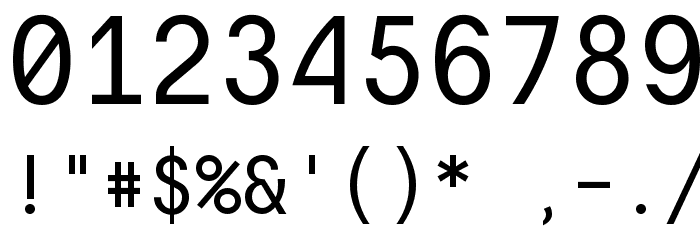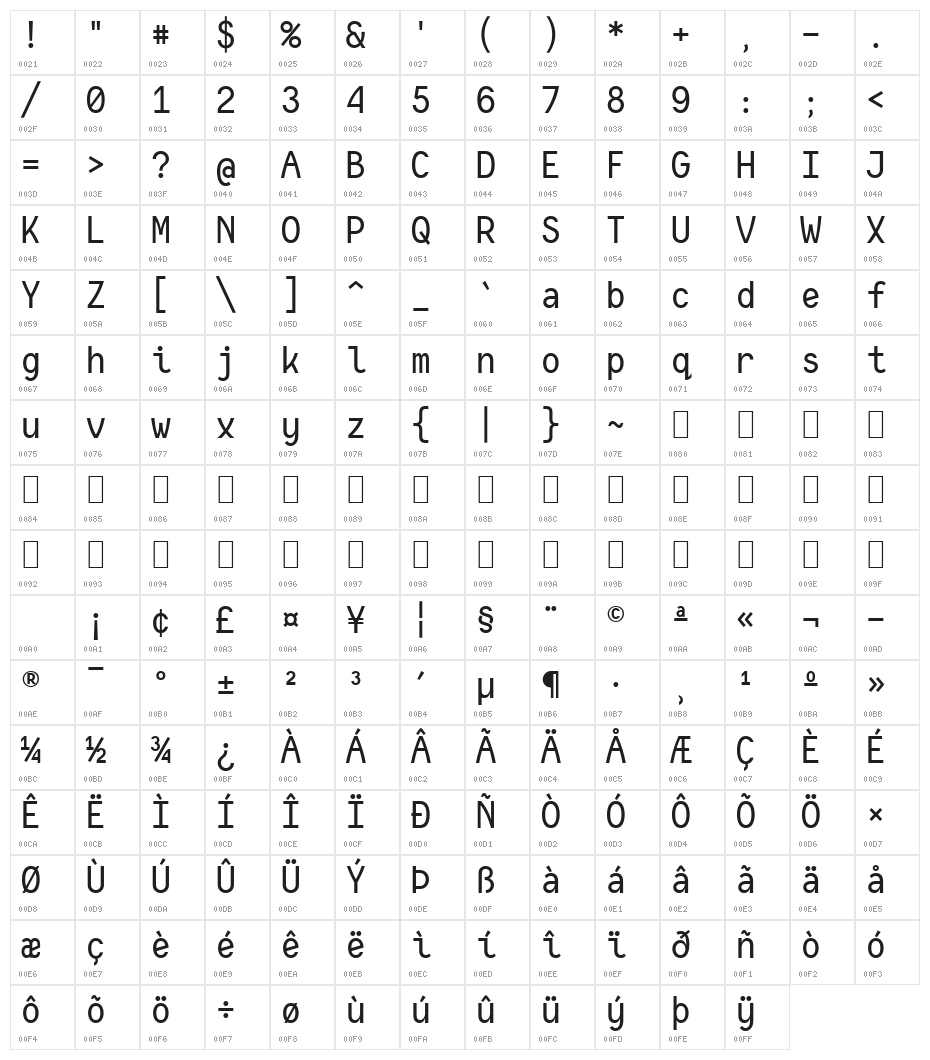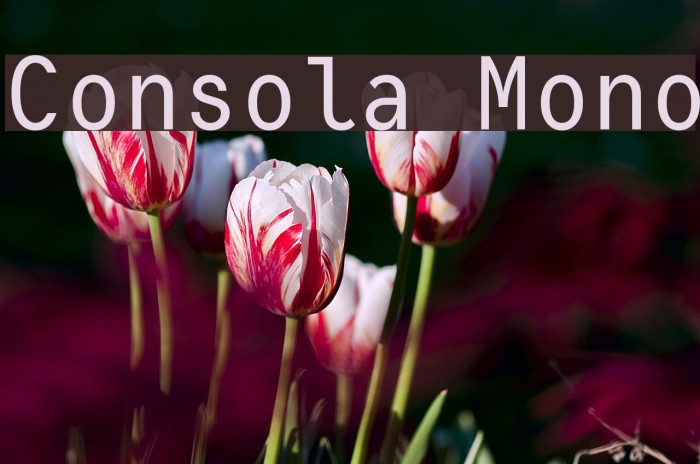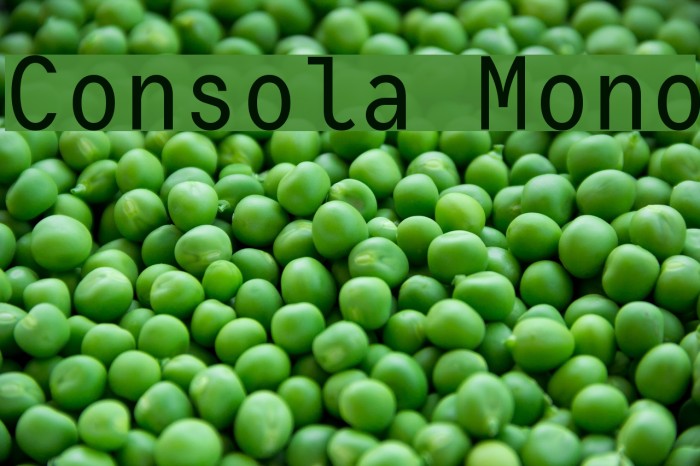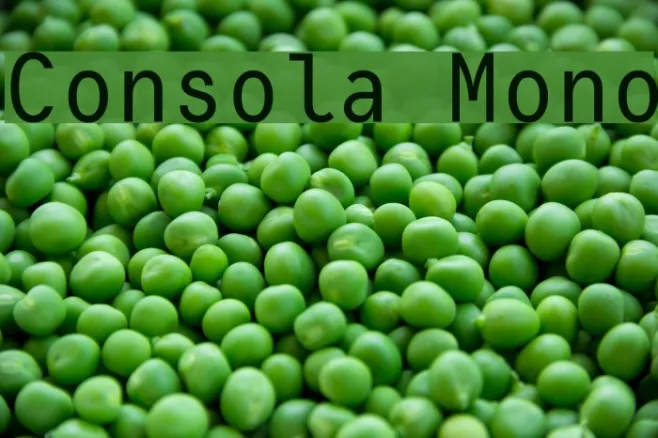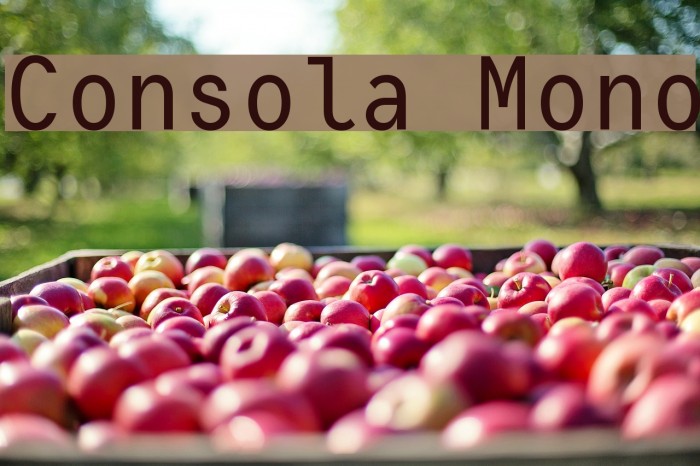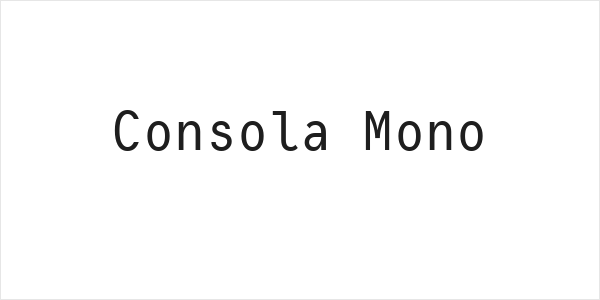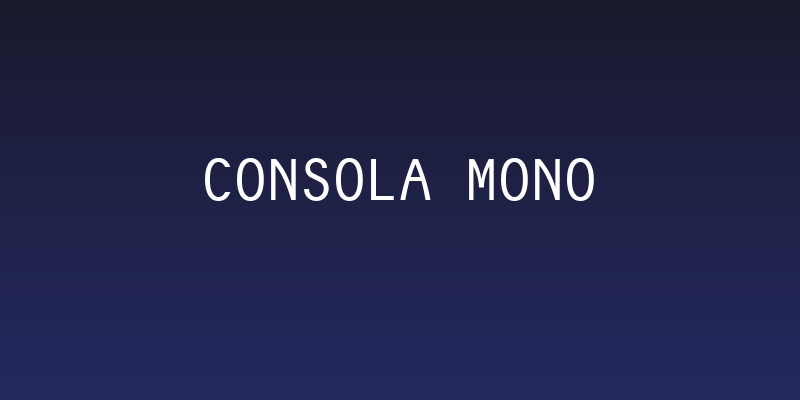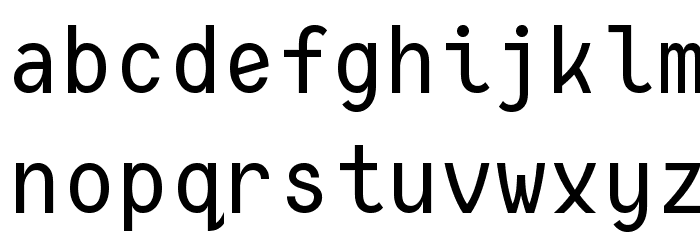
Consola Mono Font
Consola Mono Description
This monospaced font features a clean and modern design, ideal for coding and technical documentation. Each character is evenly spaced, providing a uniform appearance that enhances readability. The font includes a complete set of uppercase and lowercase letters, numerals, and a variety of special characters. Its simplicity and clarity make it suitable for environments where precision and legibility are paramount. The consistent stroke width and lack of decorative elements contribute to its straightforward and professional look.
| Proposed Projects | Ideal for use in code editors, terminal applications, technical manuals, and any project requiring precise alignment of text. |